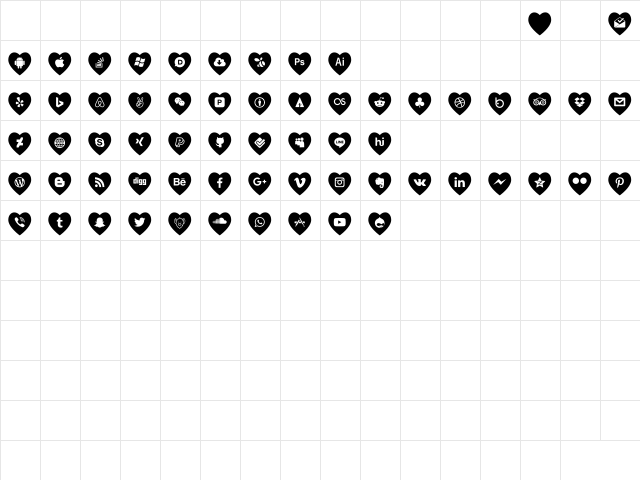
Complete love social media Regular glyph index. Displaying only characters natively supported by love social media Regular font.
love social media is a composed and adaptable typeface that performs quietly and consistently across a wide range of design contexts.